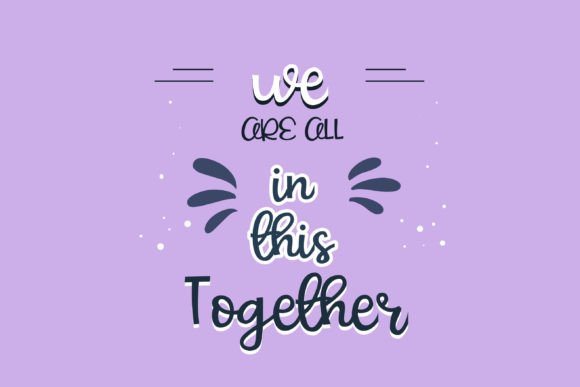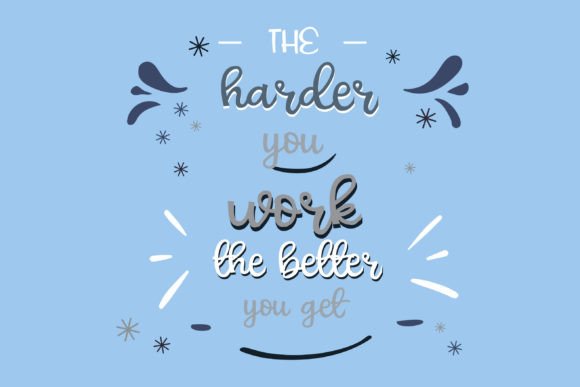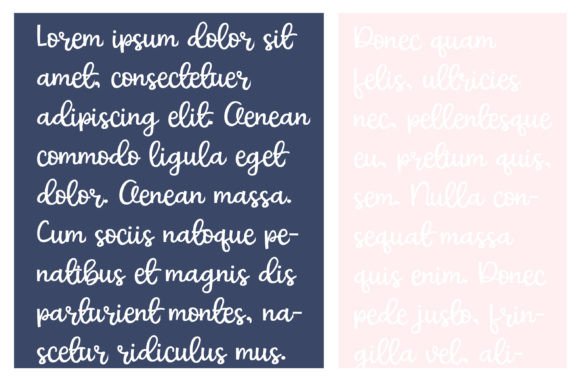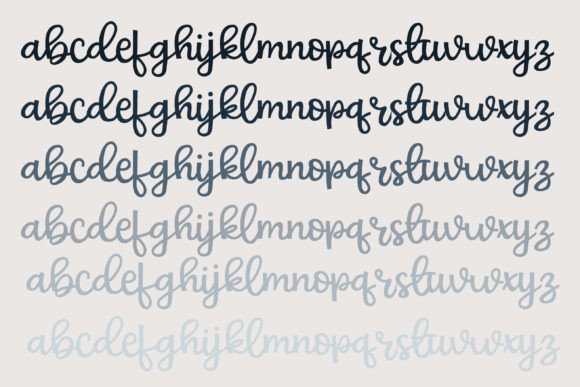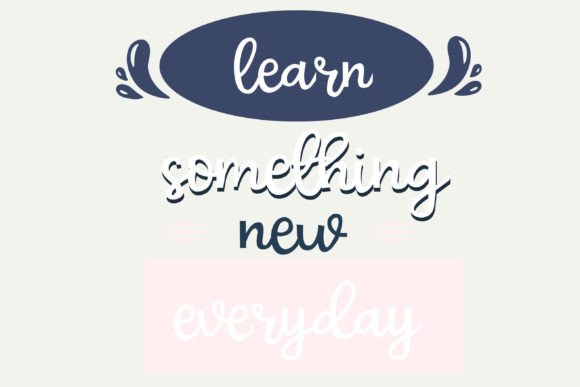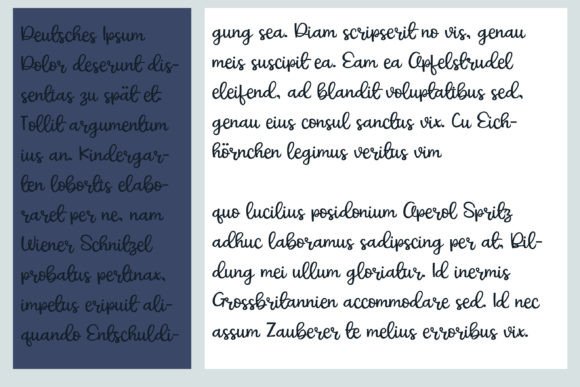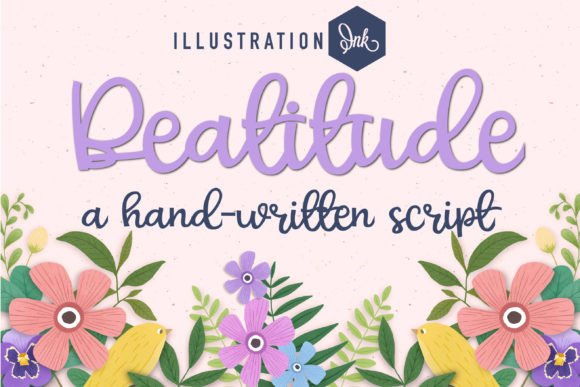
Introducing Beatitude Font: The Perfect Handwritten Cursive for Your Design Needs
Are you a designer or crafter looking for a unique and stylish font to elevate your projects? Look no further than Beatitude Font, a beautiful hand-written cursive script that exudes a youthful feel. With its heavy script and gorgeous typographic, this font is perfect for a wide range of applications, from logos and branding to invitations, stationery, and more.
What is Beatitude Font?
Beatitude Font is a carefully crafted hand-written cursive script that boasts a distinctive and stylish look. Its heavy script gives it a bold and eye-catching appearance, while its cursive flow makes it perfect for creating beautiful, flowing text. Whether you’re looking to add a personal touch to your designs or create a lasting impression, Beatitude Font is the perfect choice.
What Can I Use Beatitude Font For?
The versatility of Beatitude Font is one of its standout features. This font can be used for a wide range of projects, including:
• Logos & Branding: Create a unique and memorable logo for your business or brand with Beatitude Font.
• Invitations: Add a touch of elegance and sophistication to your invitations with this beautiful hand-written cursive script.
• Stationery: Elevate your stationery designs with Beatitude Font, perfect for creating professional-looking letters, cards, and more.
• Wedding Designs: Make your wedding designs truly special with Beatitude Font, ideal for creating stunning wedding invitations, programs, and more.
• Social Media Posts: Add a personal touch to your social media posts with Beatitude Font, perfect for creating eye-catching graphics and quotes.
• Advertisements: Create effective and stylish advertisements with Beatitude Font, guaranteed to grab attention.
• Product Packaging: Give your product packaging a unique and stylish look with Beatitude Font.
• Product Designs: Add a touch of personality to your product designs with this beautiful hand-written cursive script.
• Labels: Create stylish and informative labels with Beatitude Font, perfect for products, files, and more.
• Photography: Add a touch of elegance to your photography with Beatitude Font, ideal for creating beautiful watermarks and overlays.
• Special Events: Make your special events truly unforgettable with Beatitude Font, perfect for creating stunning invitations, programs, and more.
Why Choose Beatitude Font?
So why should you choose Beatitude Font for your design needs? Here are just a few reasons:
• Unique and Stylish: Beatitude Font boasts a unique and stylish look that will set your designs apart from the rest.
• Versatile: This font can be used for a wide range of projects, making it a valuable addition to your design toolkit.
• Easy to Read: Despite its bold and cursive script, Beatitude Font is easy to read, making it perfect for creating effective and stylish text.
• High-Quality: Beatitude Font is a high-quality font, carefully crafted to ensure that it looks great in any design.
Tips for Using Beatitude Font
Here are a few tips for getting the most out of Beatitude Font:
• Experiment with Sizes: Beatitude Font looks great in a range of sizes, from large headings to smaller body text.
• Play with Colors: This font looks great in a range of colors, so don’t be afraid to experiment and find the perfect hue for your design.
• Mix and Match: Beatitude Font pairs well with a range of other fonts, so feel free to mix and match to create a unique look.
In conclusion, Beatitude Font is a beautiful and versatile hand-written cursive script that is perfect for a wide range of design needs. With its unique and stylish look, ease of use, and high-quality design, this font is a valuable addition to any design toolkit. Whether you’re a designer, crafter, or simply someone looking to add a personal touch to your projects, Beatitude Font is the perfect choice.